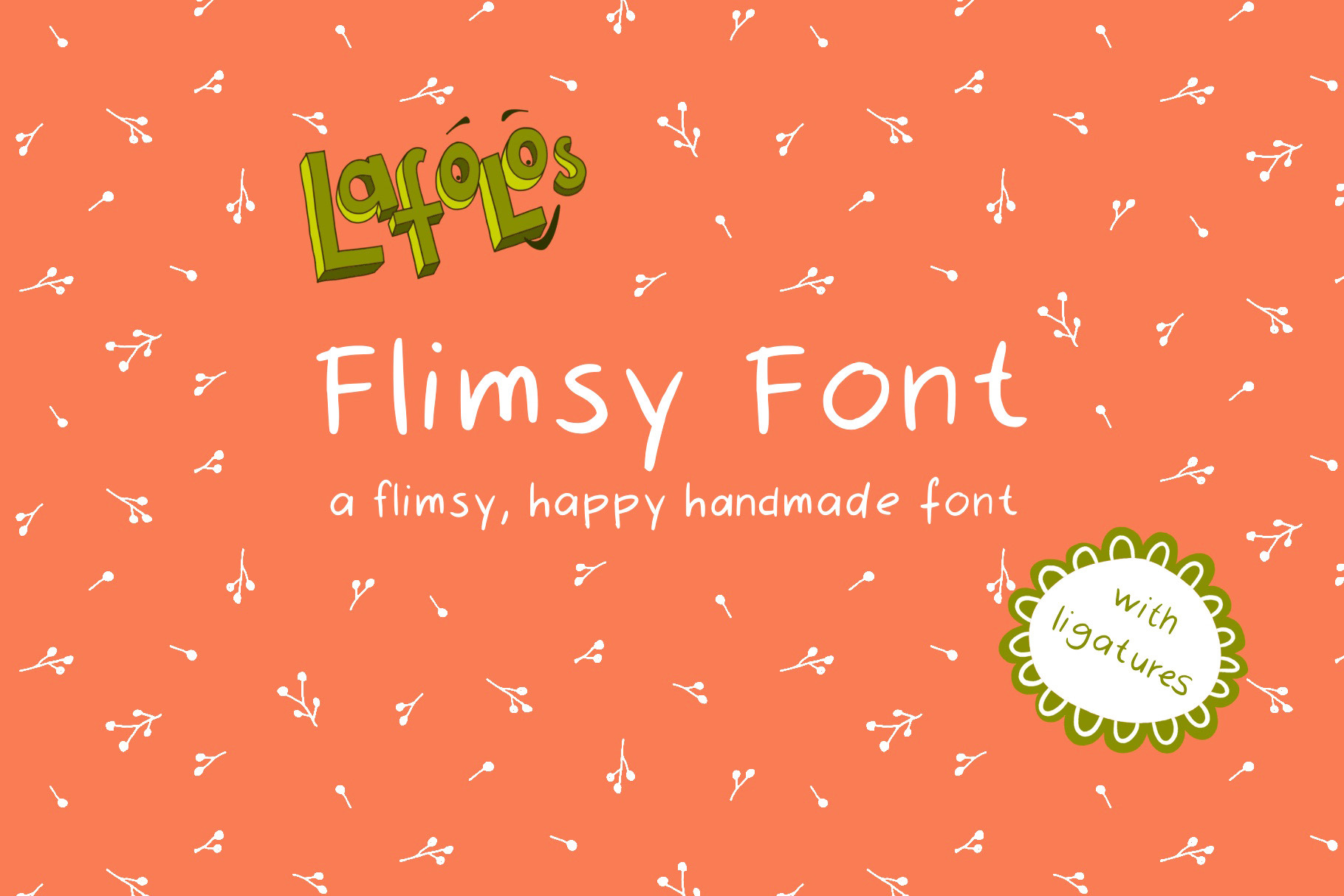
LAFOLOs Flimsy Font
LAFOLOs Flimsy Font - a very handmade fancy font for fun packaging designs, headlines, book titles and much more - 100% handmade fun!
Use the font to create individual designs for headlines in chapter books, greeting cards, notebooks, stickers and so much more.